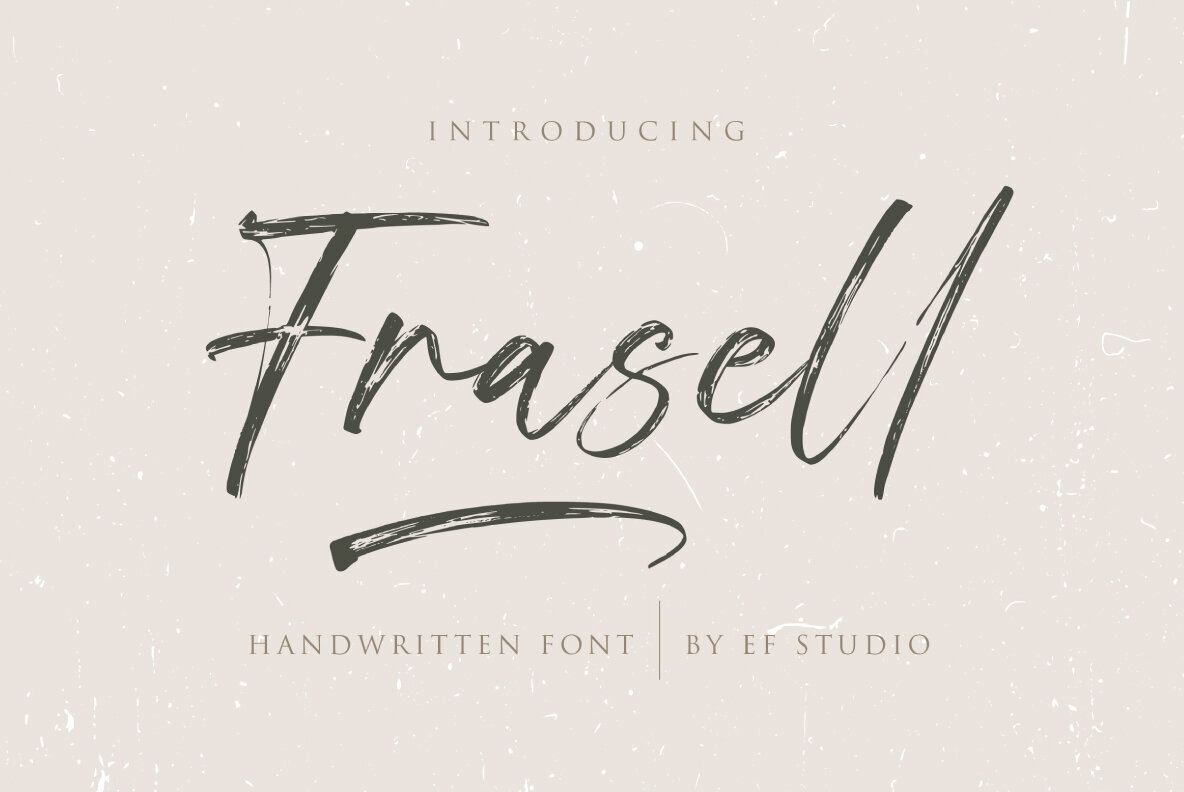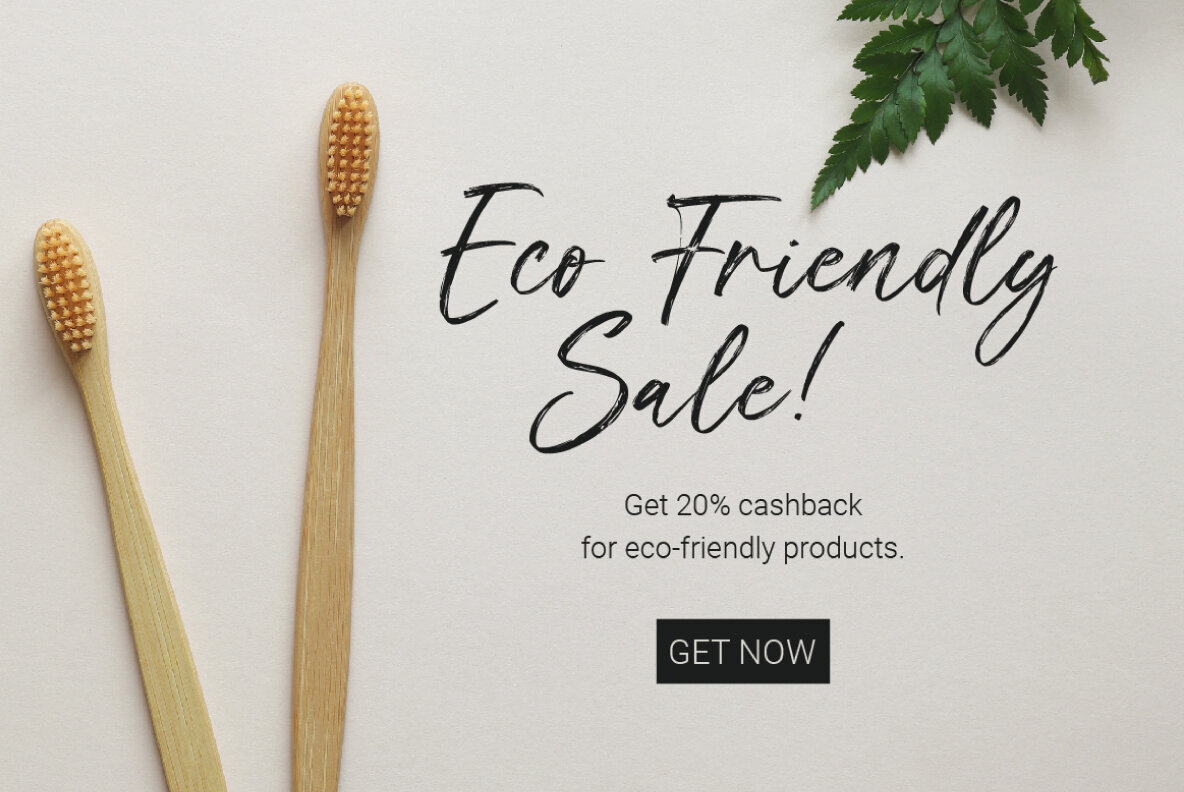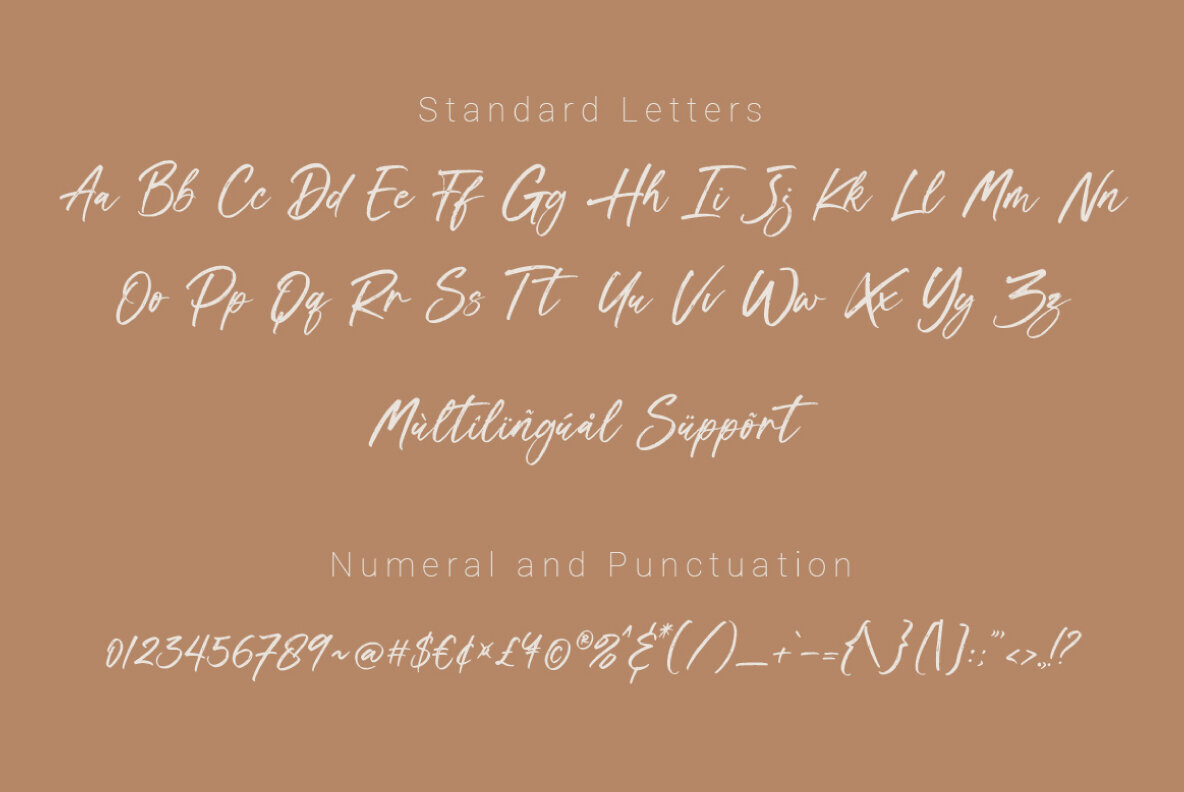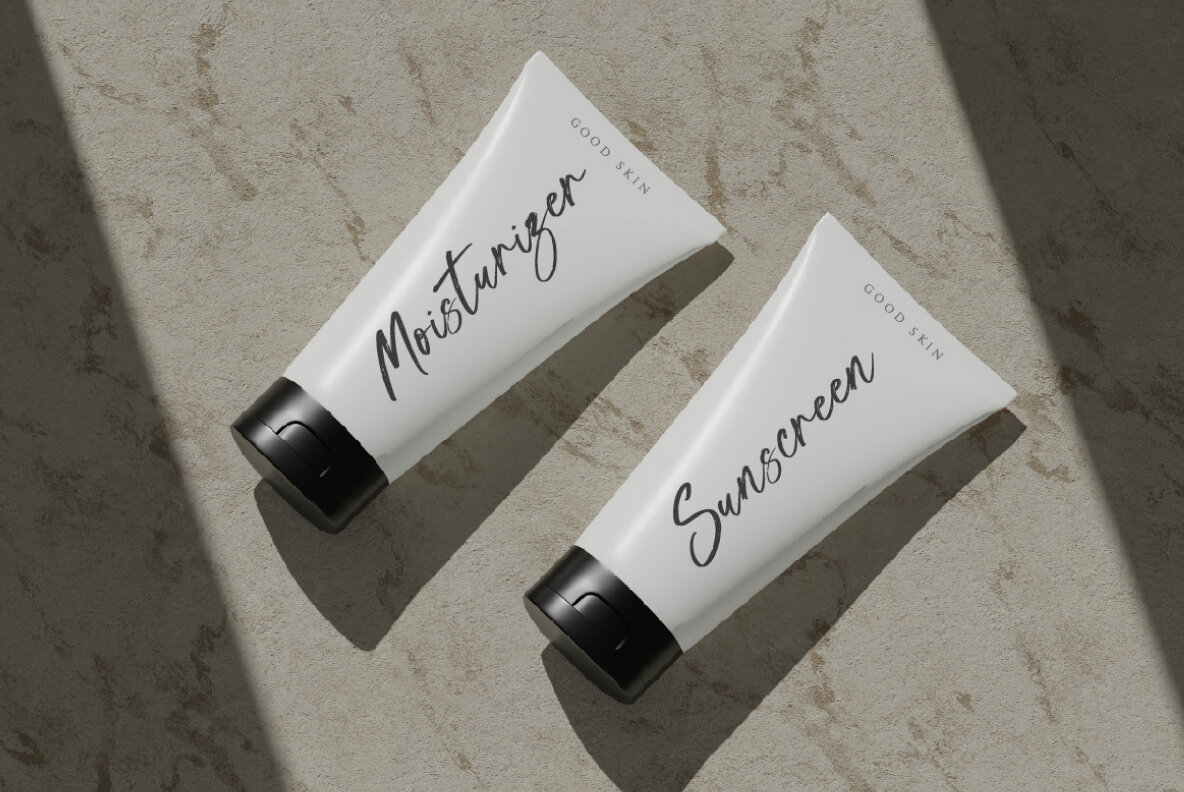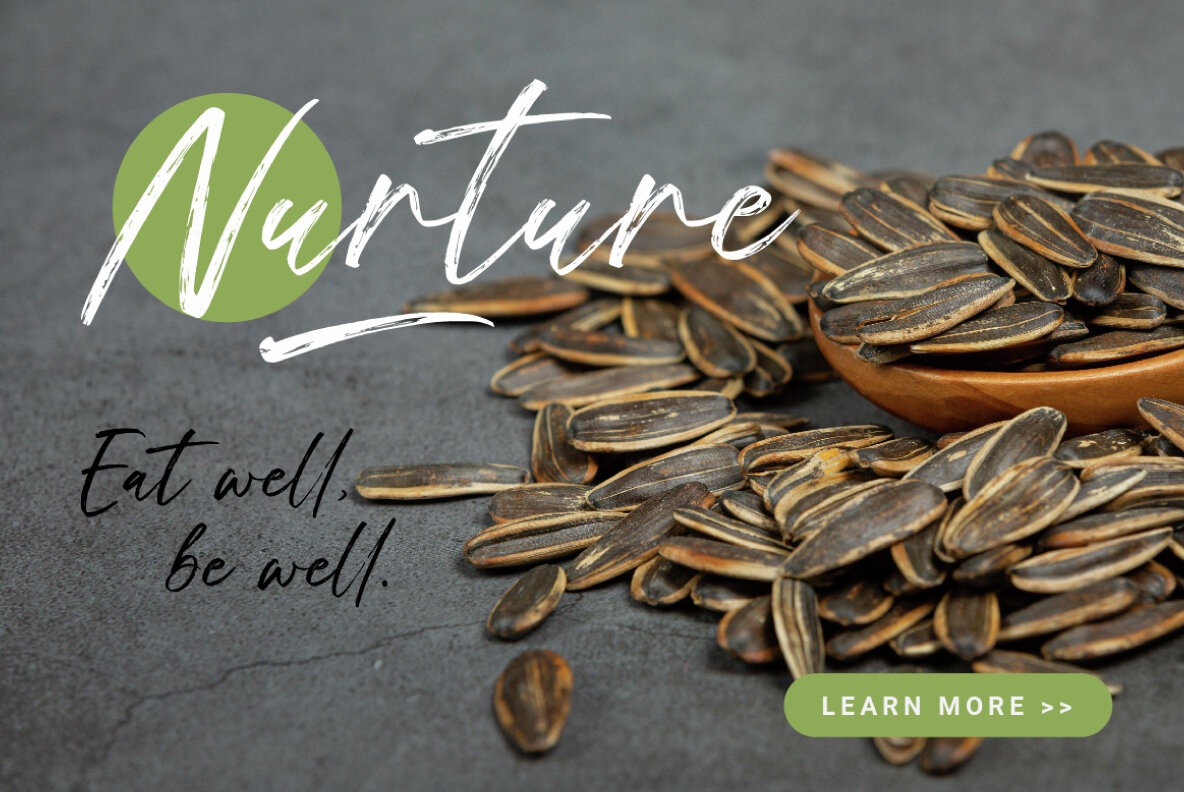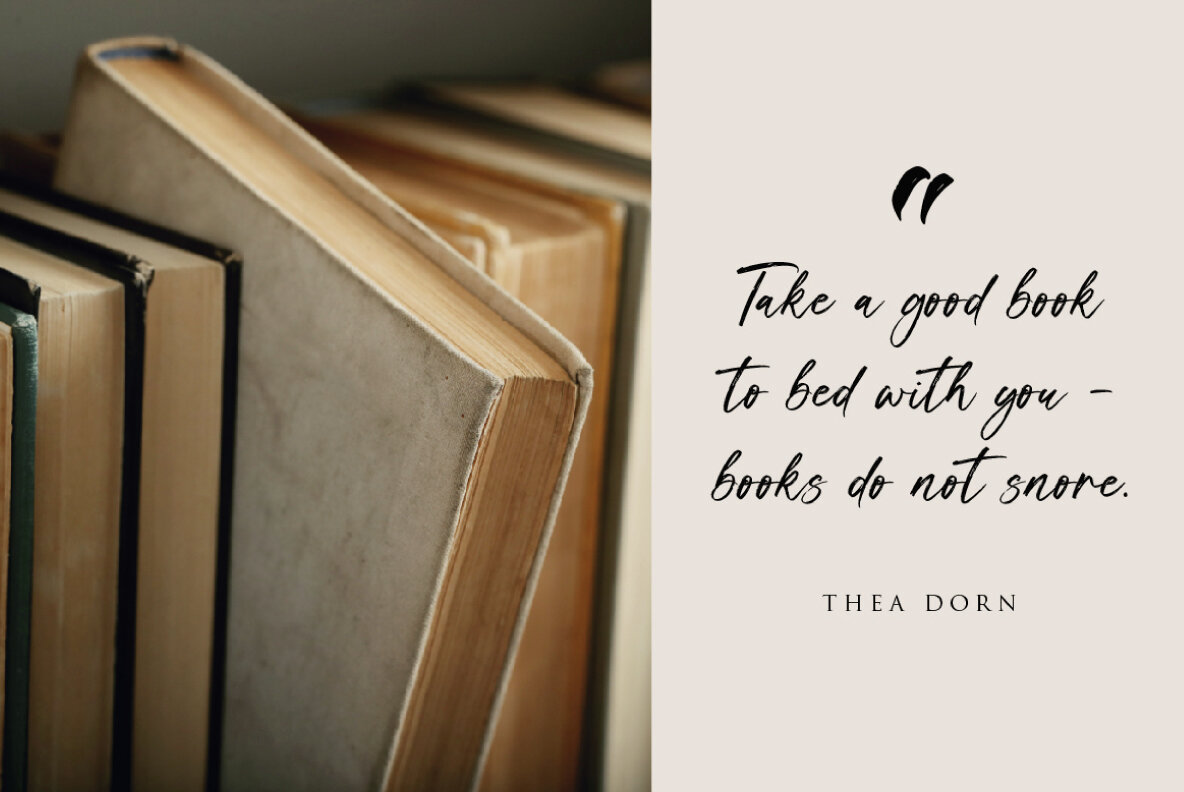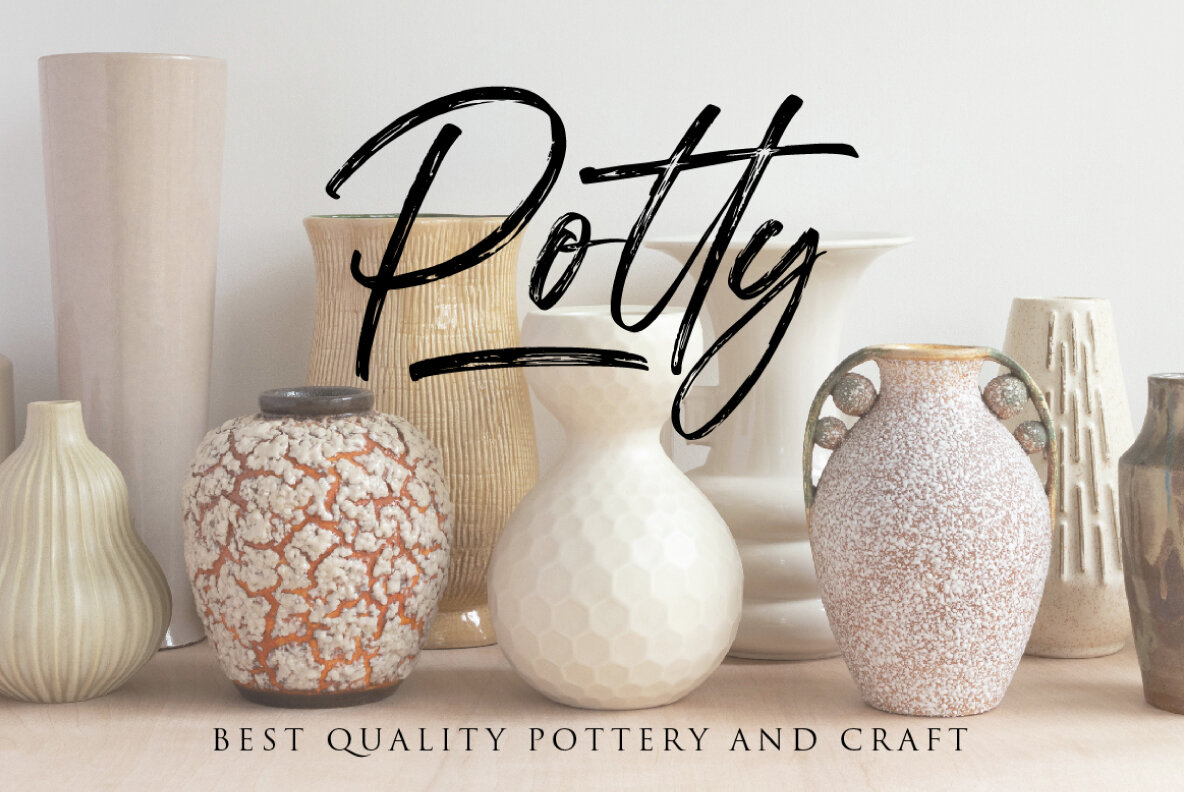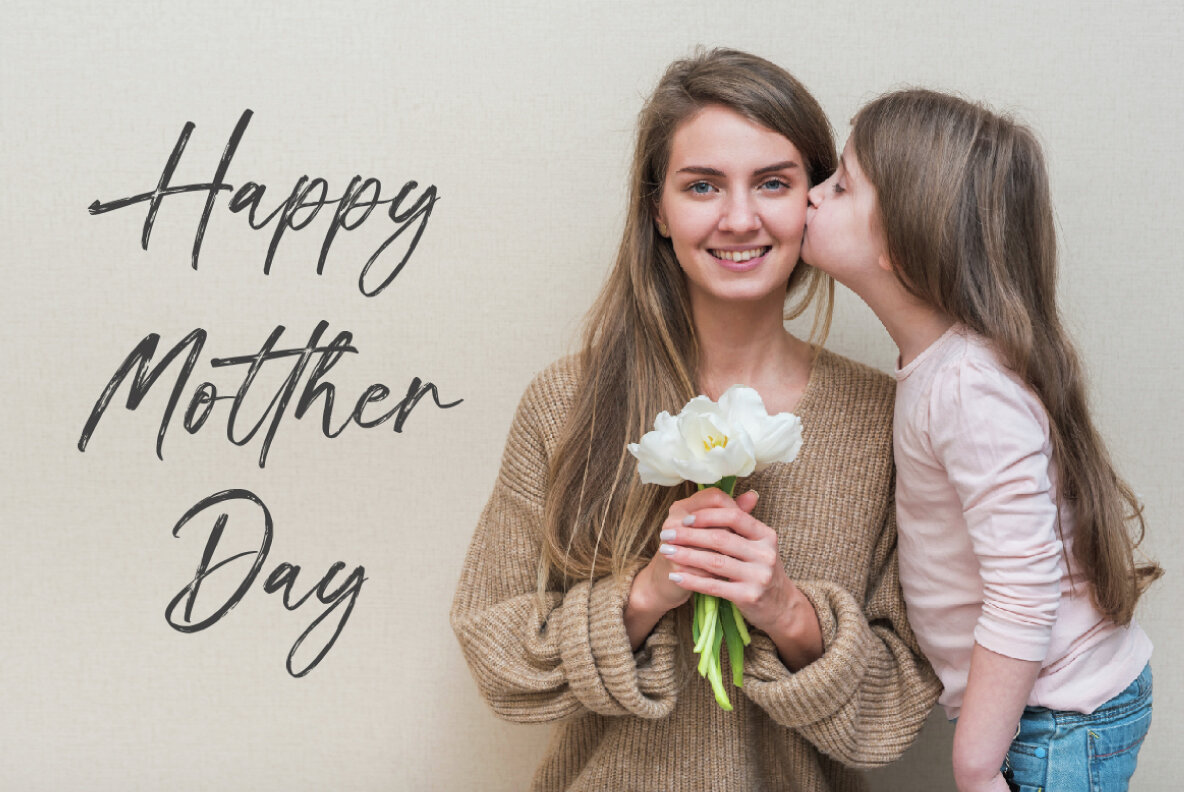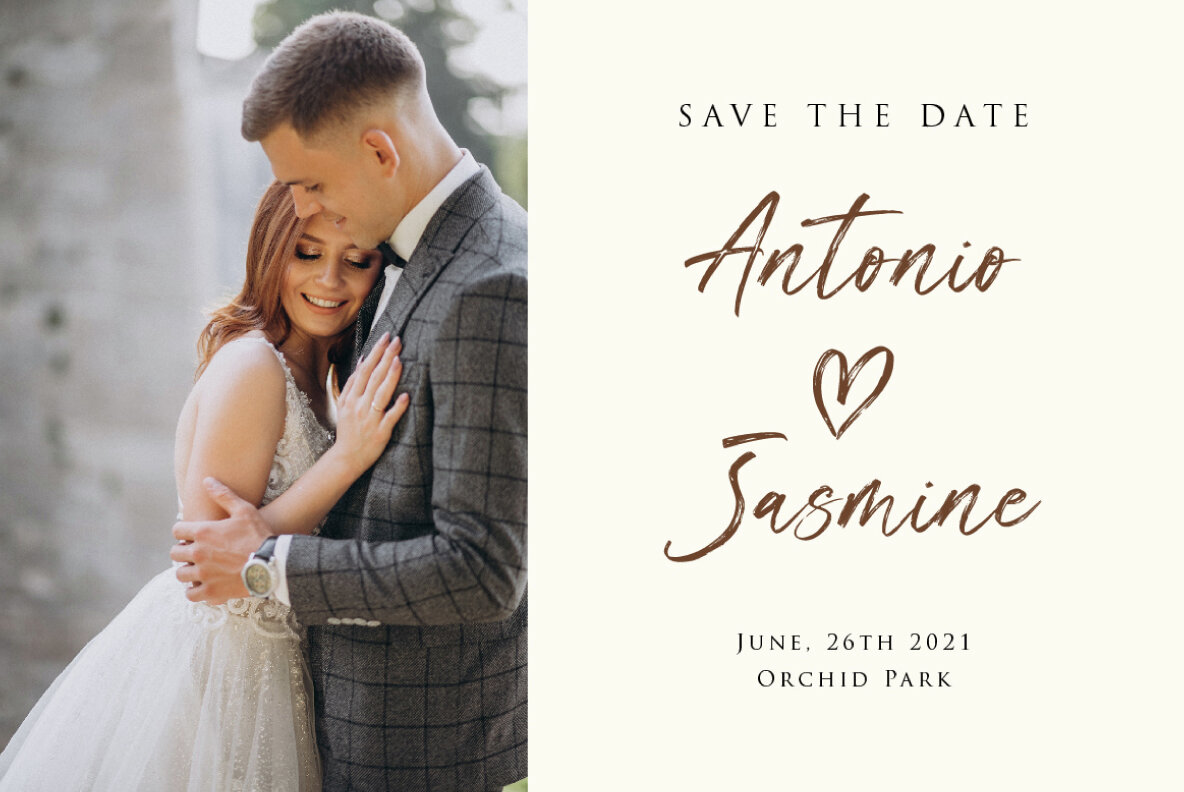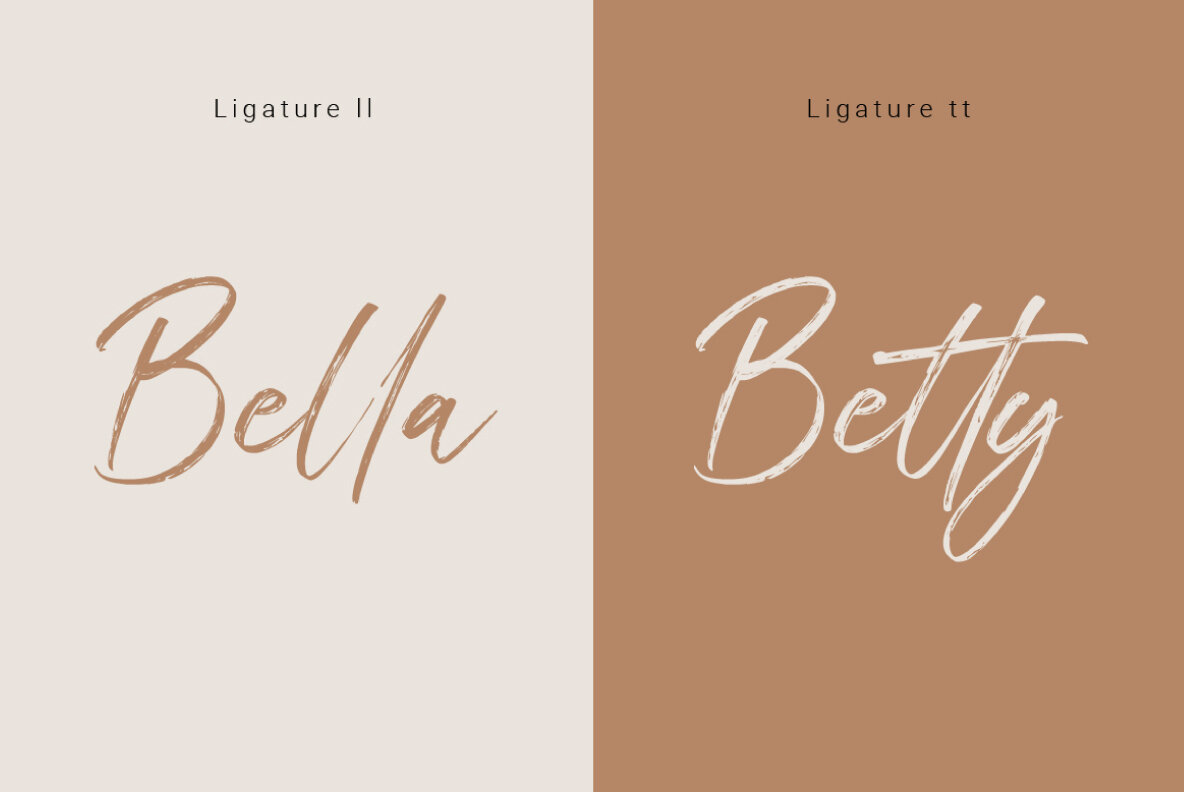
Frasell Font
Frasell
Frasell is your ideal choice for projects requiring a personal touch. This expressive brush handwritten font is perfect for a wide range of applications including branding, invitations, packaging, and more. Its versatility makes it a must-have for any designer's toolkit, lending a unique charm to websites, advertisements, magazines, logos, and beyond.Introducing Frasell: A Brush Handwritten Font